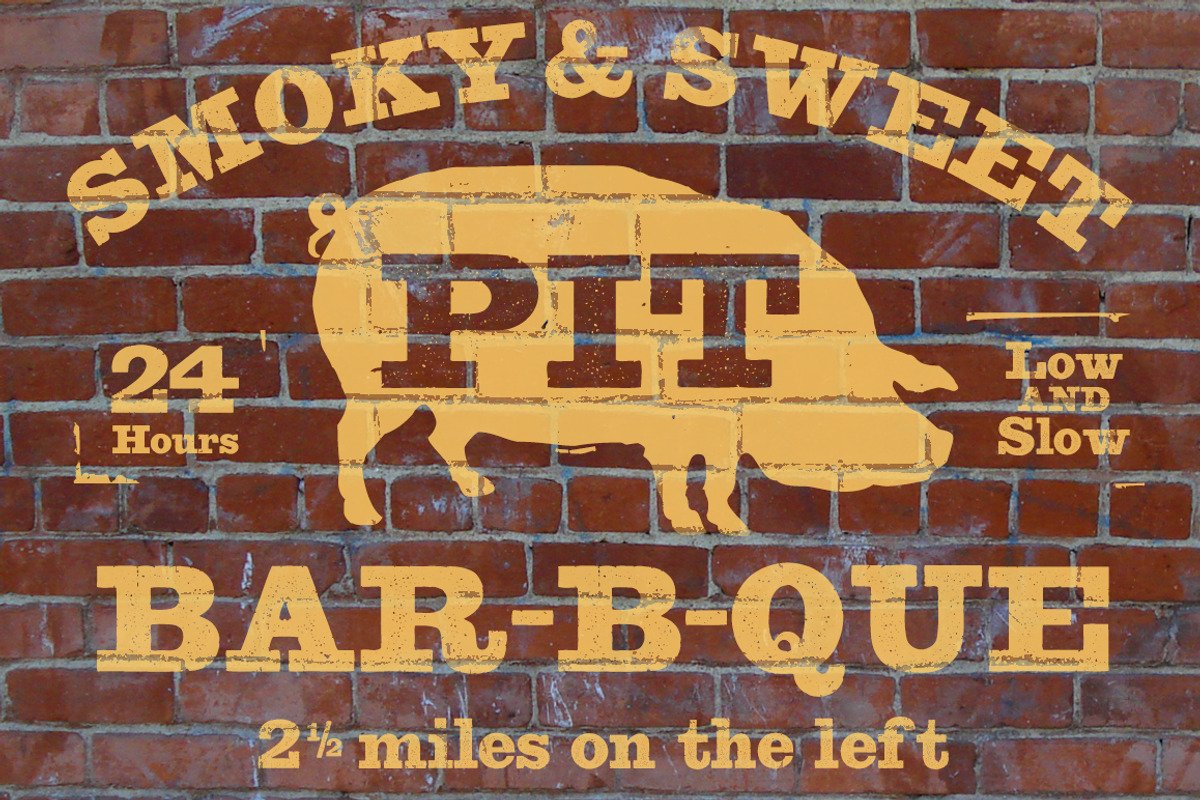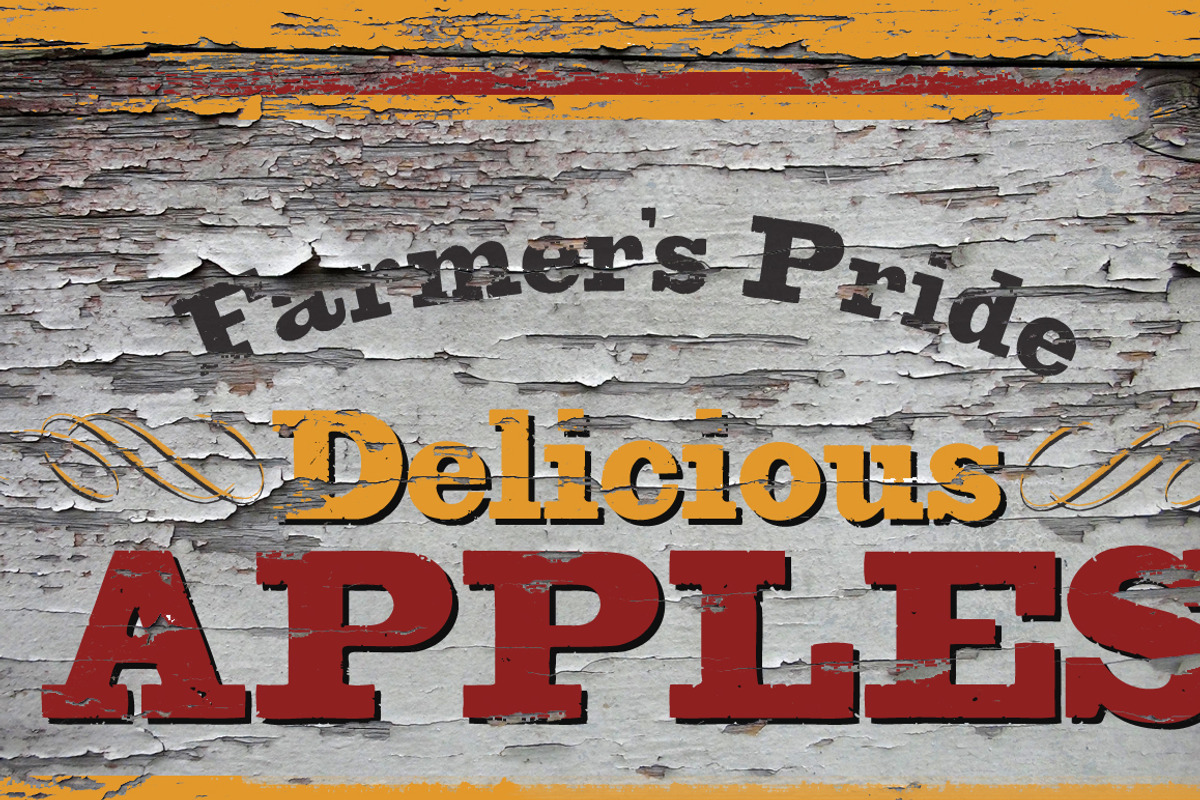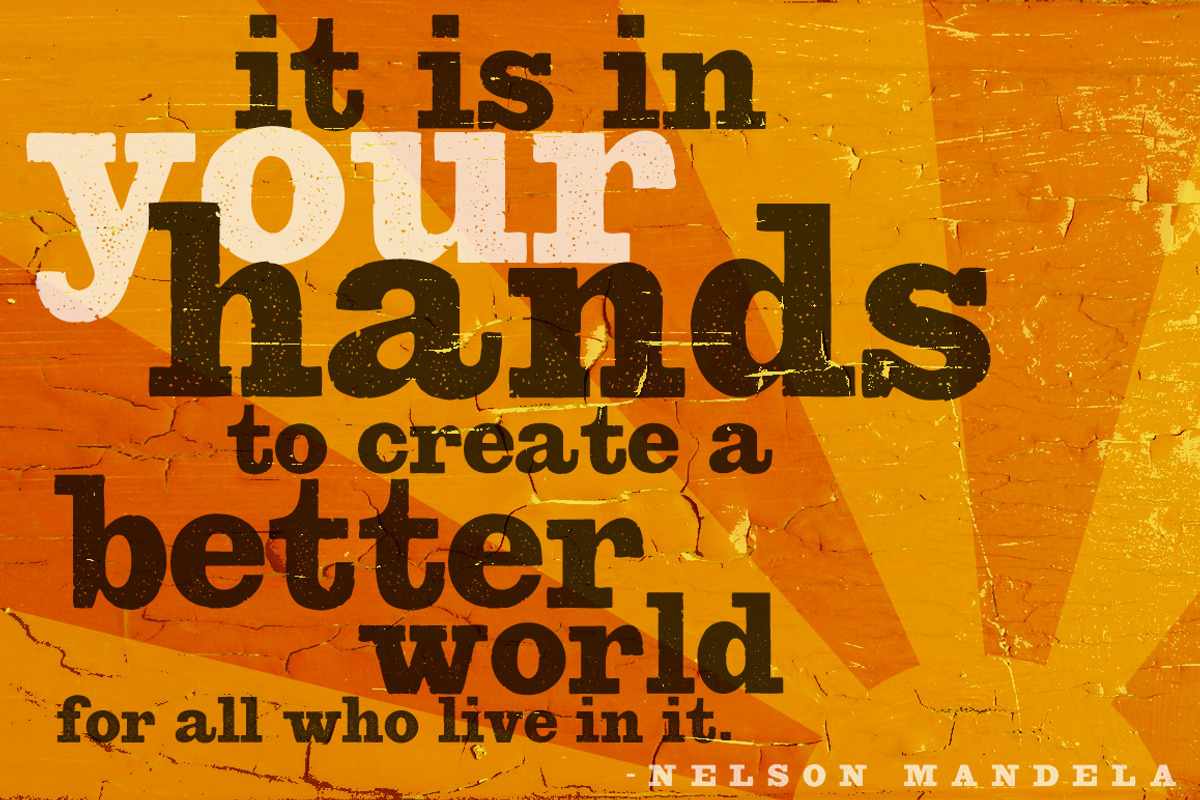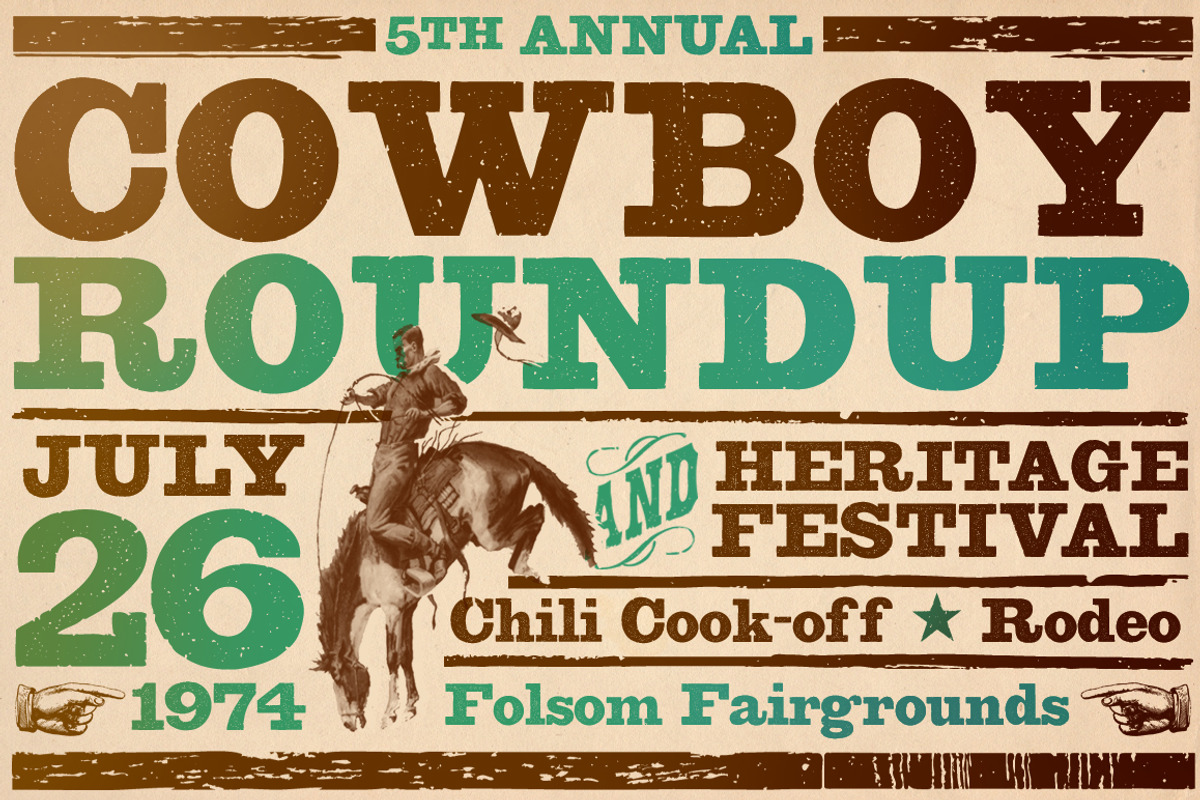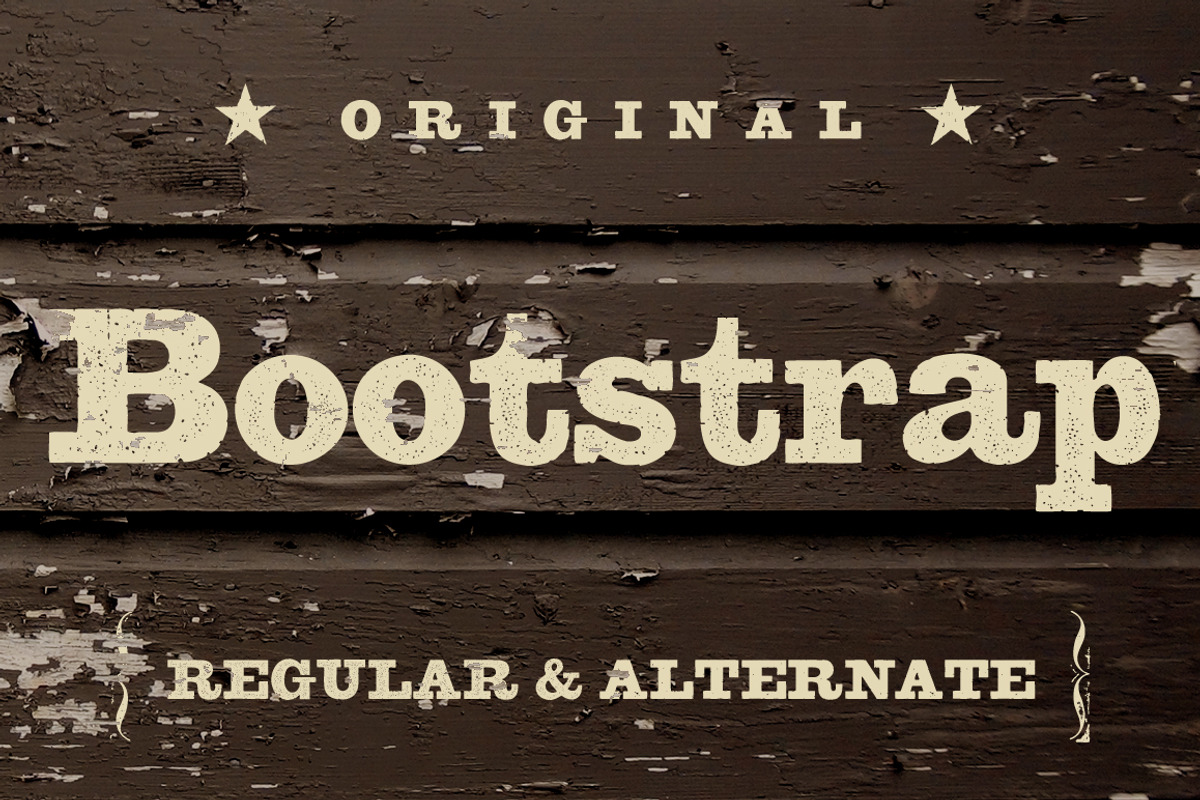
Bootstrap Alternate font
Bootstrap Alternate font by Aerotype is a font selected for branding, posters, packaging, typography.
- Broken in but none the worse for wear, Bootstrap™ and less distressed companion Bootstrap Alternate each use OpenType features to automatica
Why Bootstrap Alternate font is worth a look
Bootstrap Alternate font by Aerotype fits naturally into Branding, posters, packaging, typography.